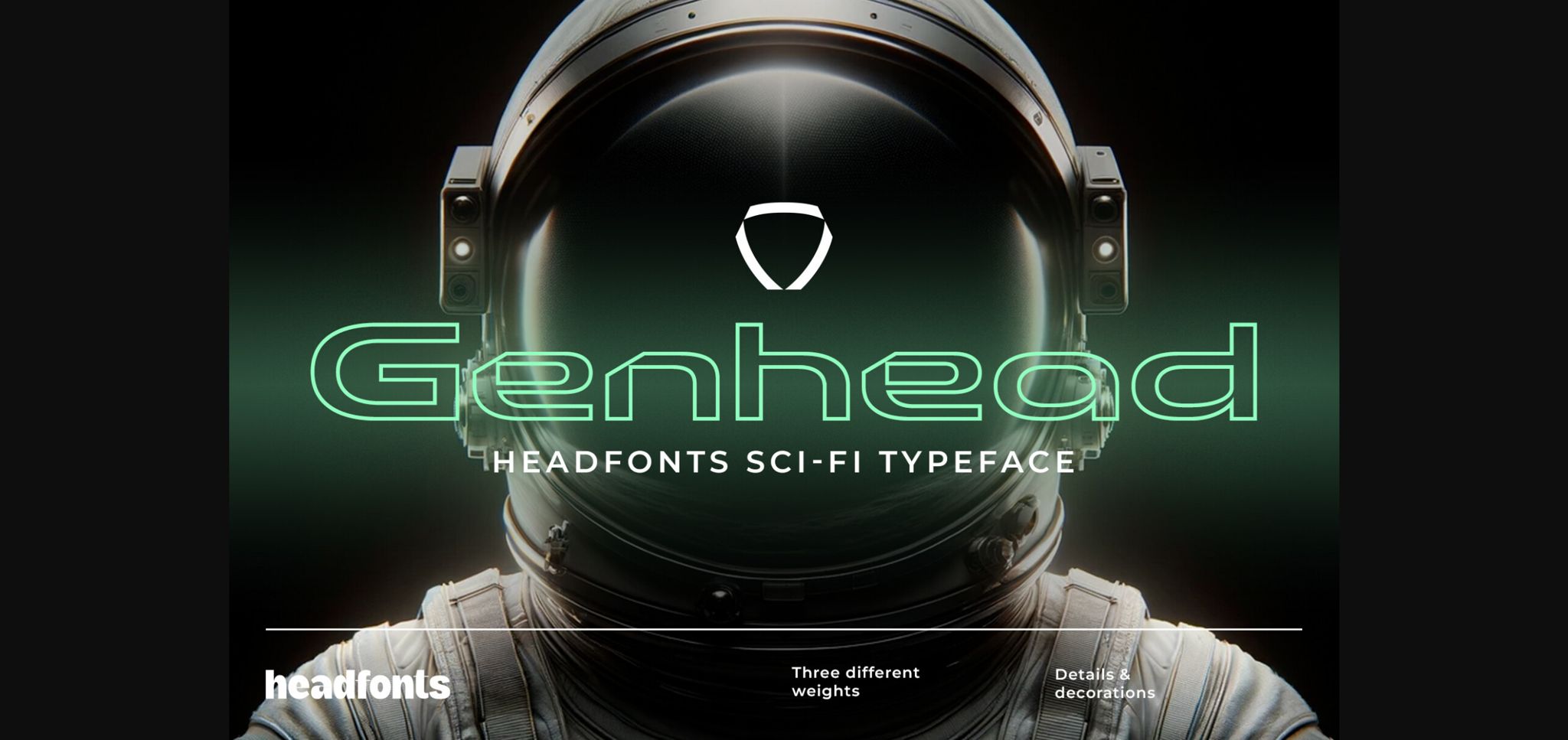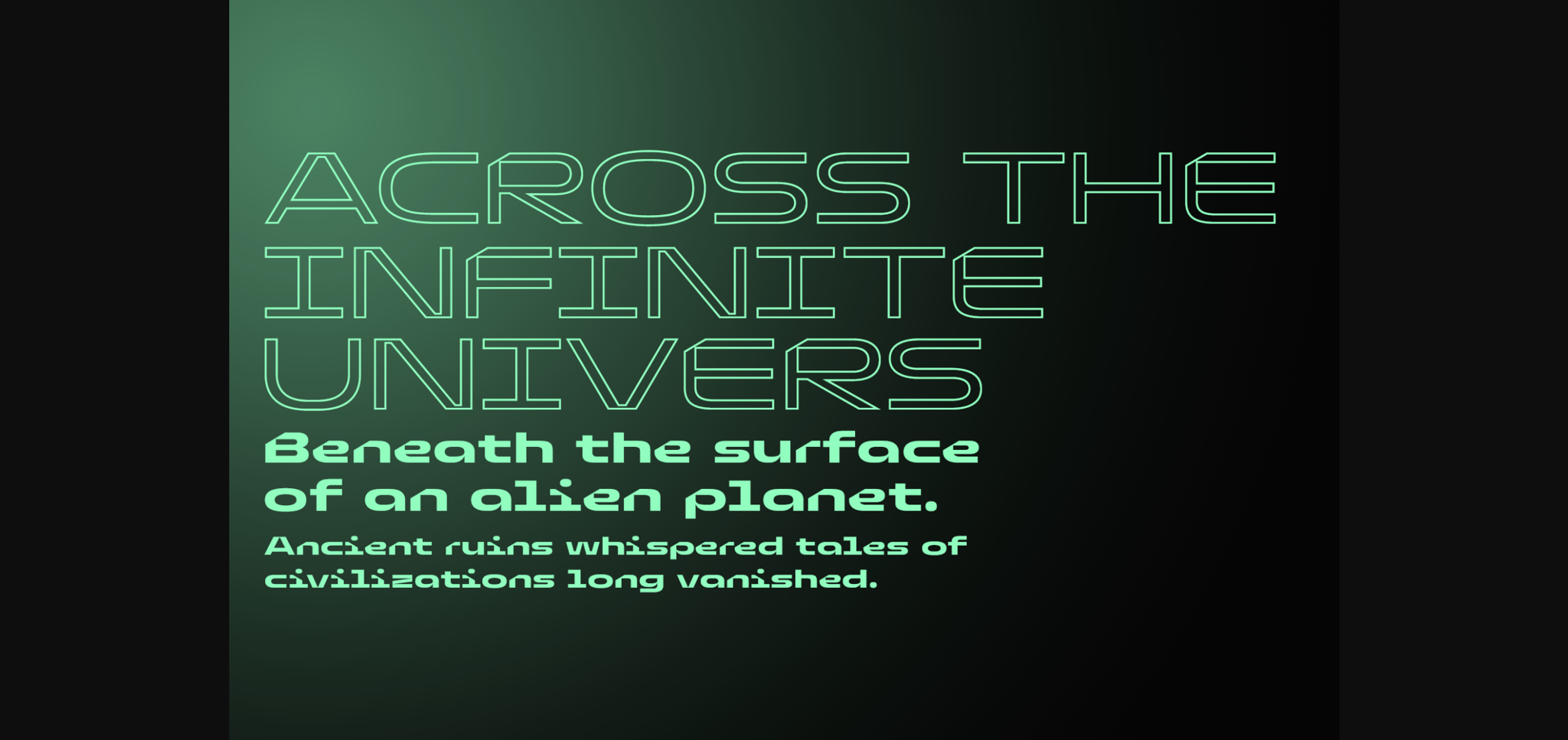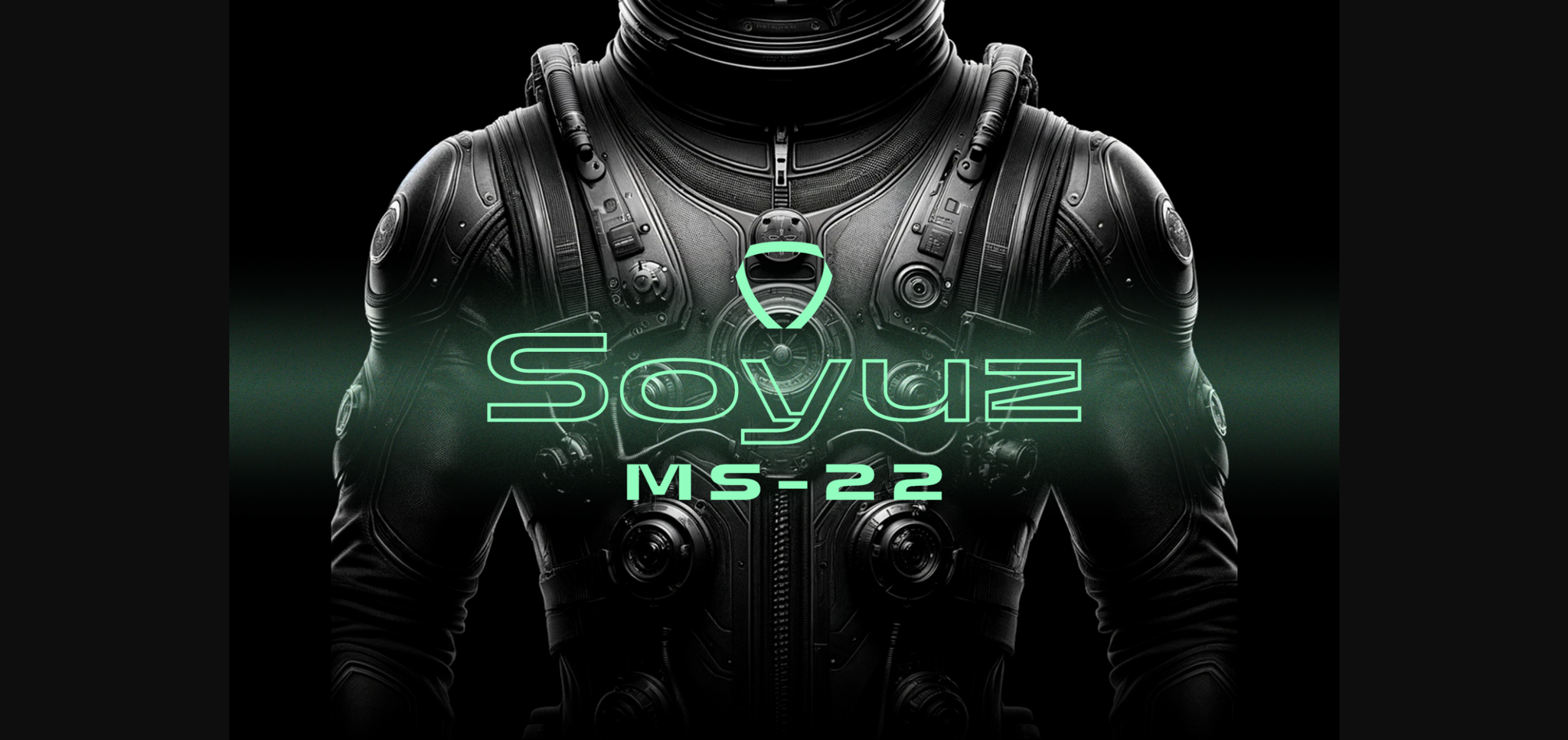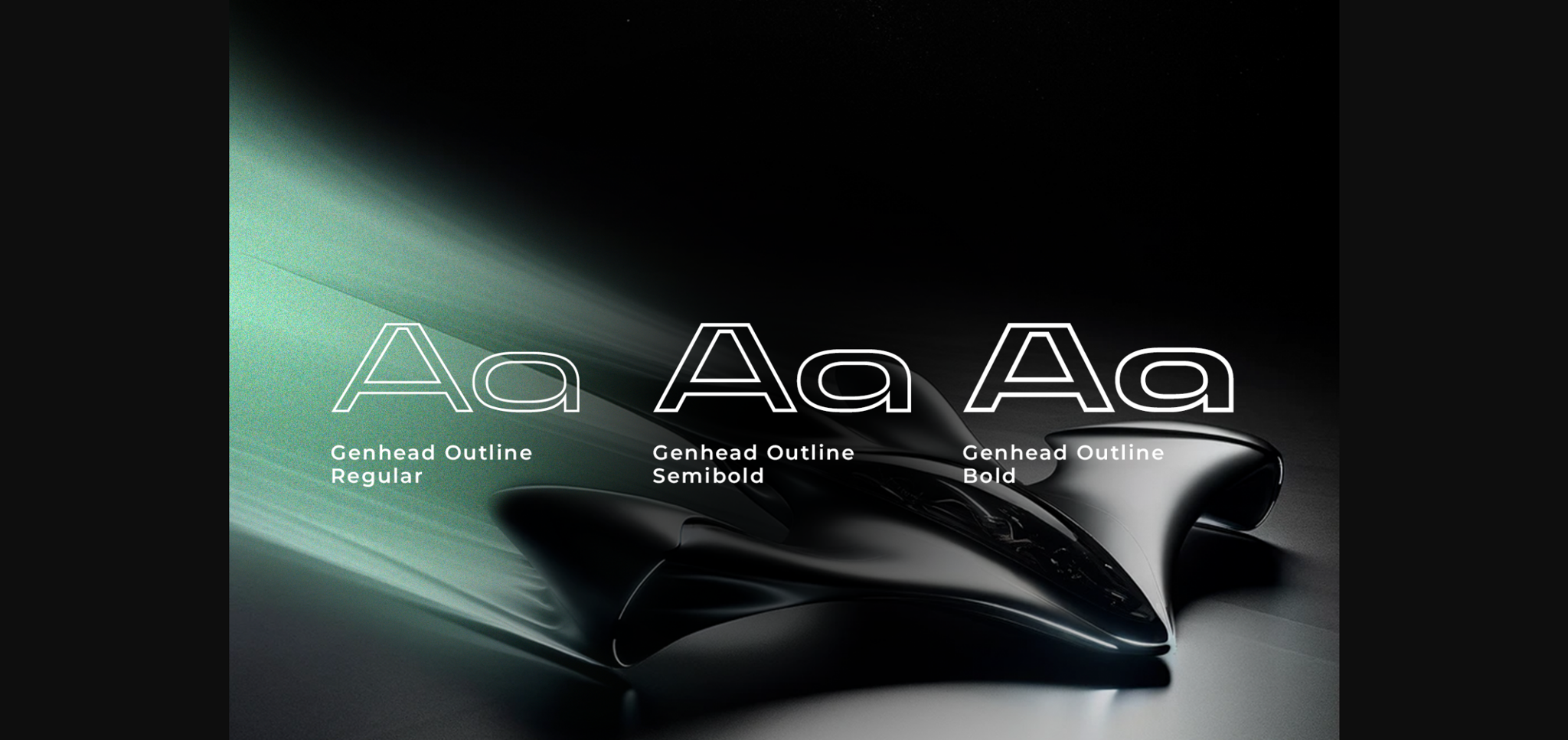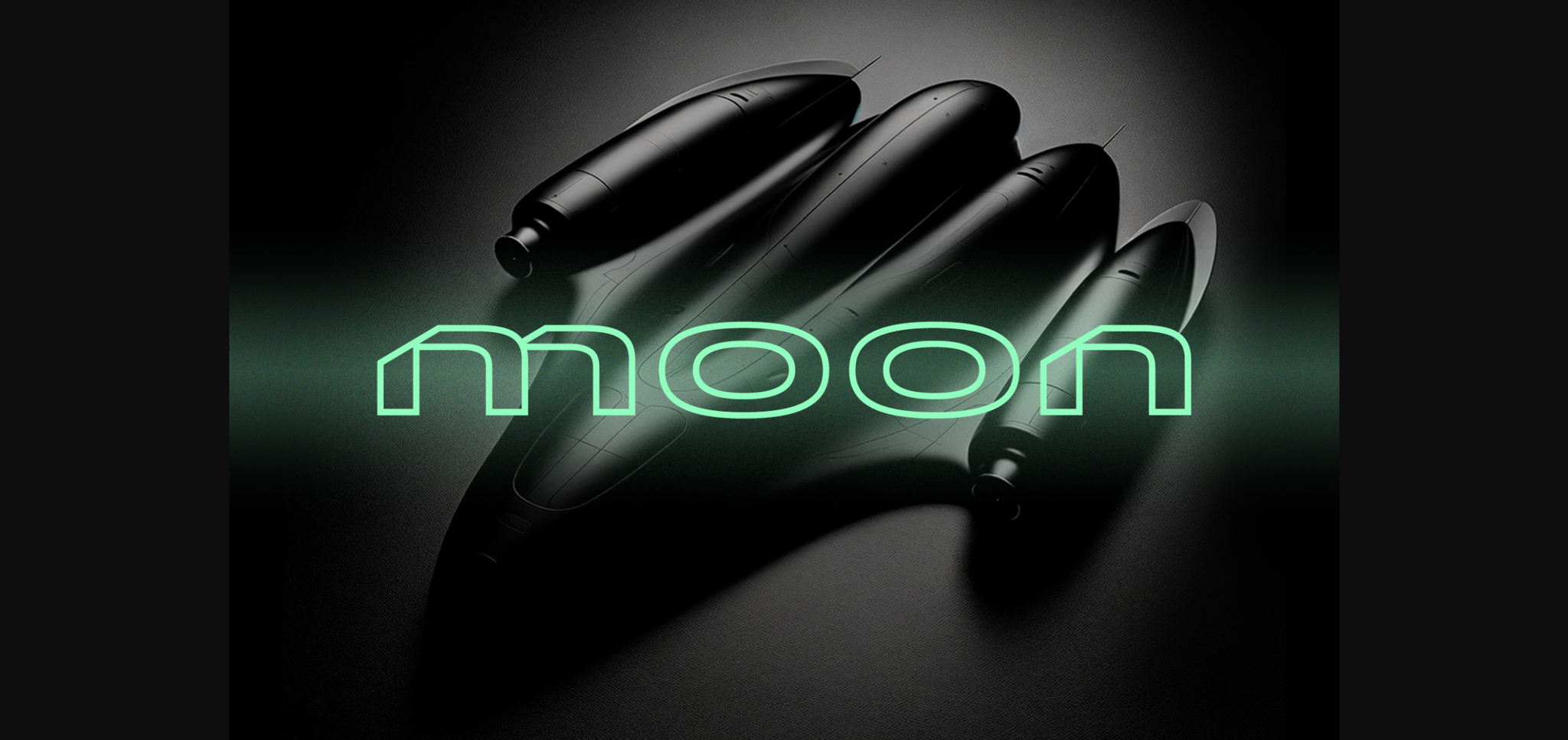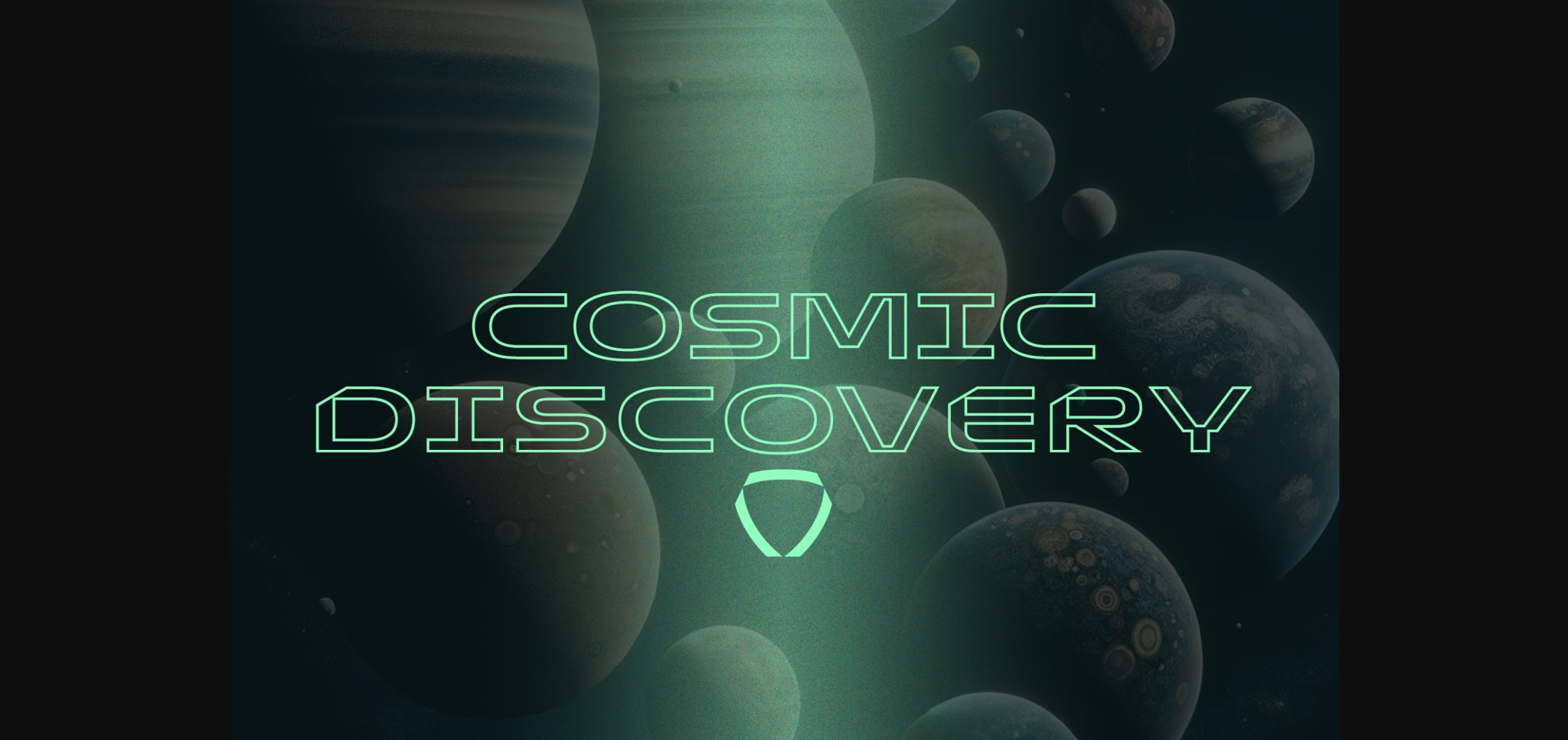
About Genhead Font
Ready to launch your designs into the stratosphere? Say hello to Genhead Outline, your new go-to typeface for all things futuristic and high-tech . Whether you’re crafting interstellar logos or typing up your next sci-fi screenplay, Genhead Outline gots your back.